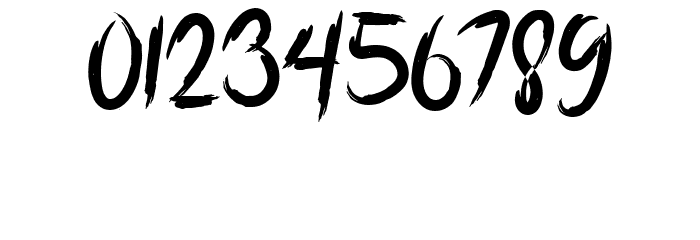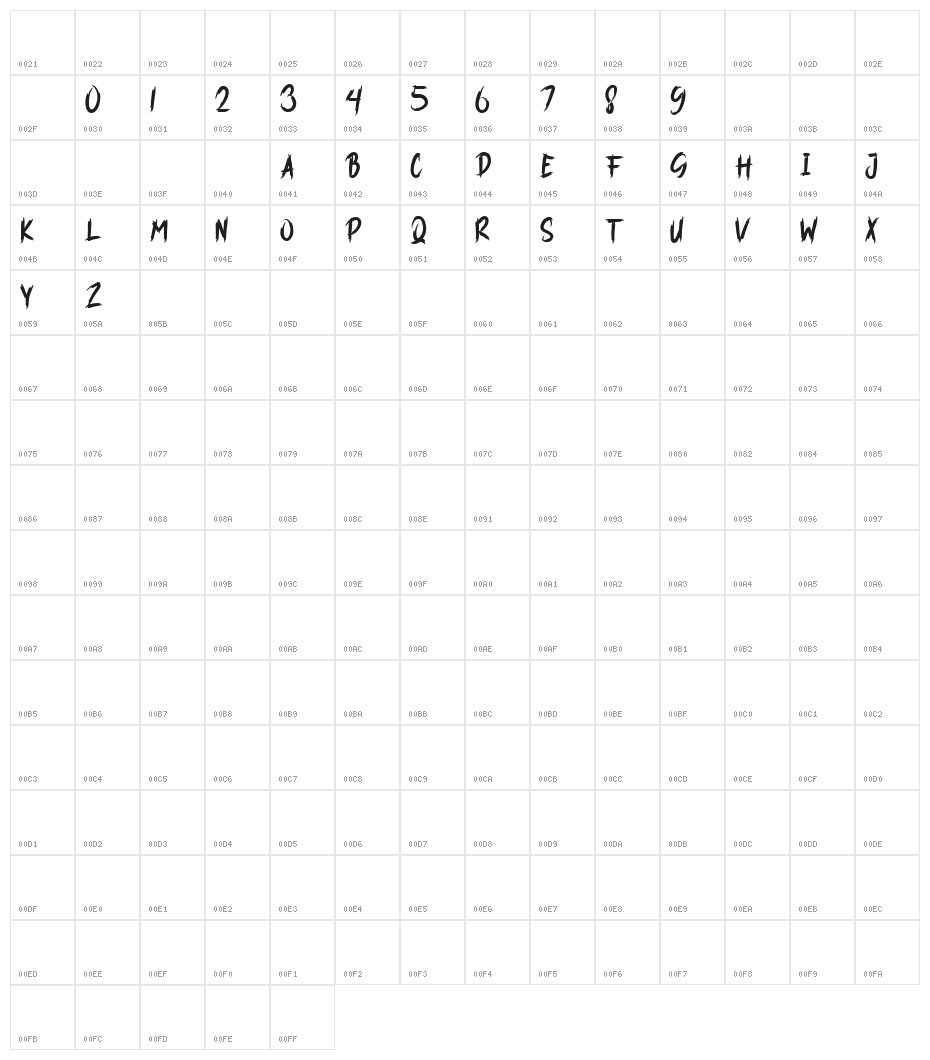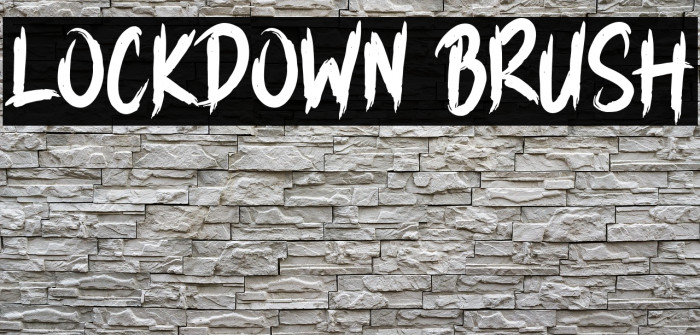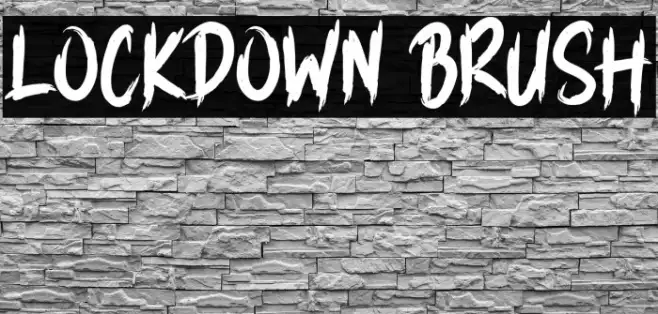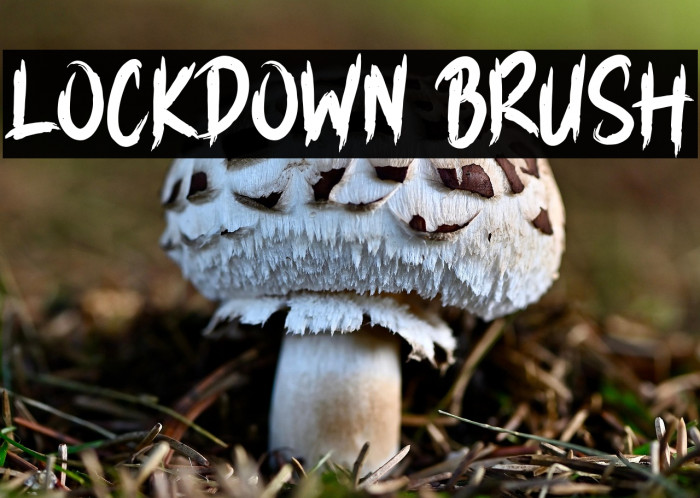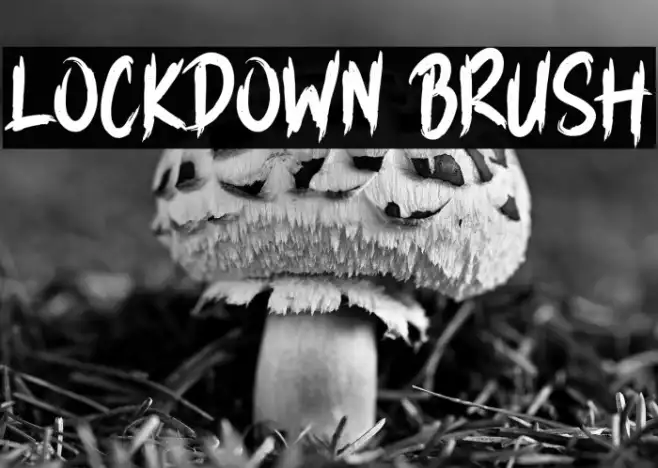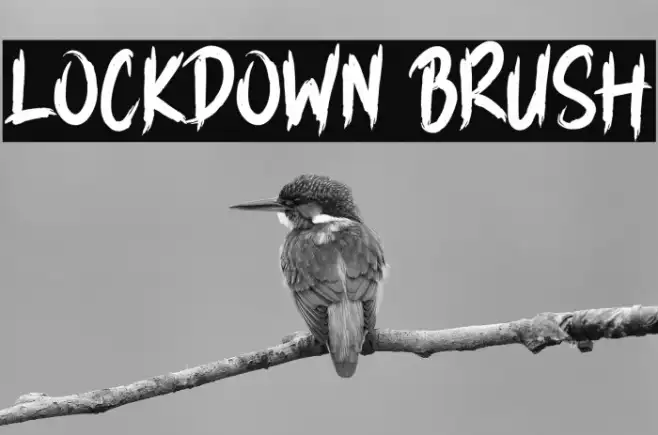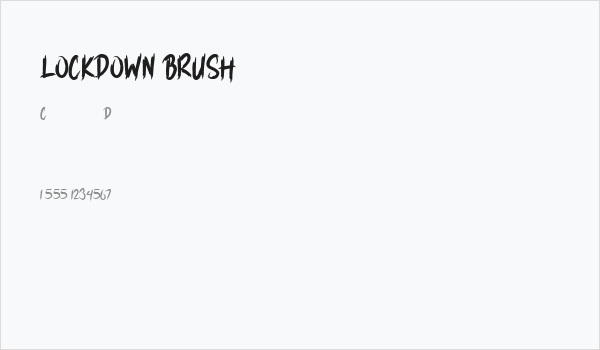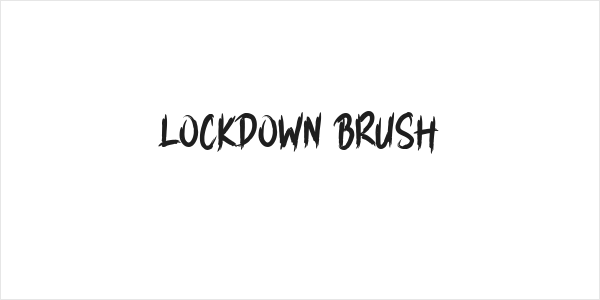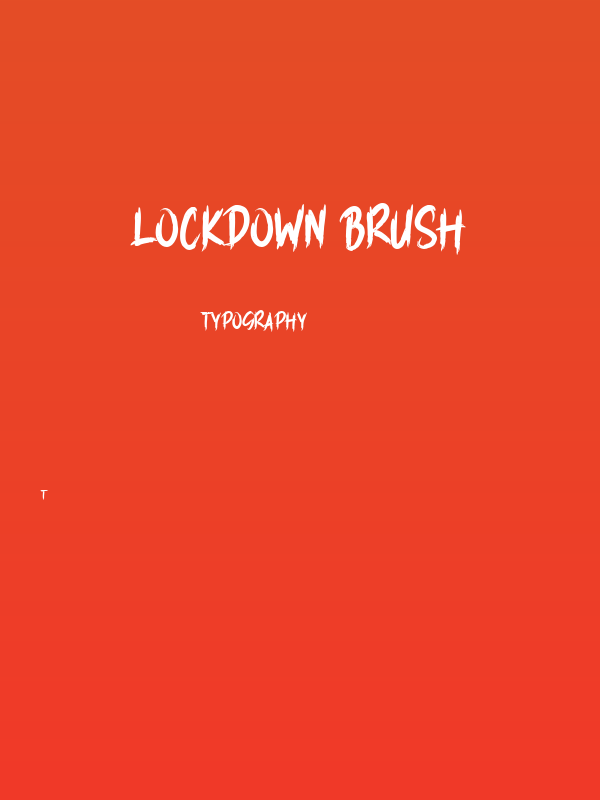
LOCKDOWN BRUSH Font
LOCKDOWN BRUSH Description
This font exudes a bold and energetic style, characterized by its brush-like strokes that give it a dynamic and handcrafted appearance. The uppercase letters are robust and slightly irregular, adding a sense of movement and spontaneity. The numerals follow the same energetic style, maintaining consistency throughout the font. The overall design is reminiscent of street art or graffiti, making it ideal for projects that require a strong visual impact. Its unique style captures attention and conveys a sense of creativity and freedom.
| Proposed Projects | Ideal for posters, album covers, branding projects, and any design requiring a bold, artistic touch. |